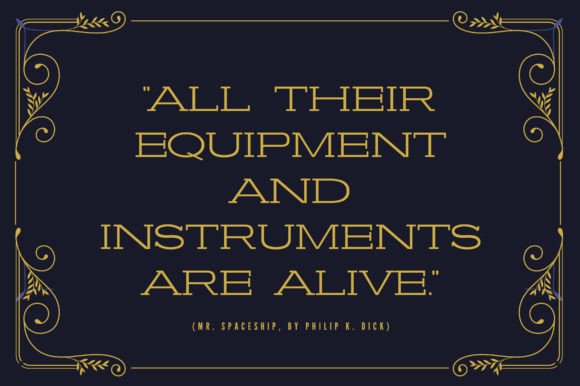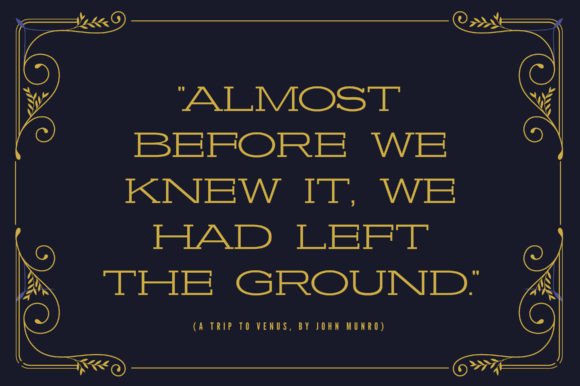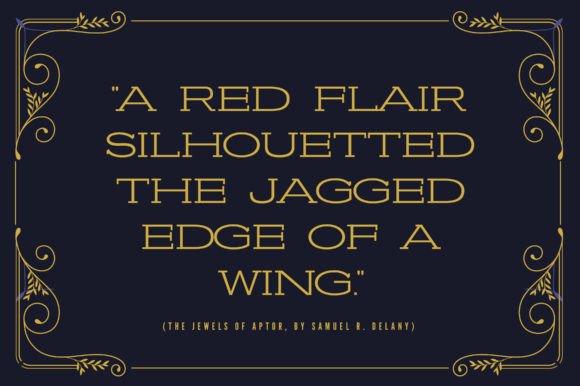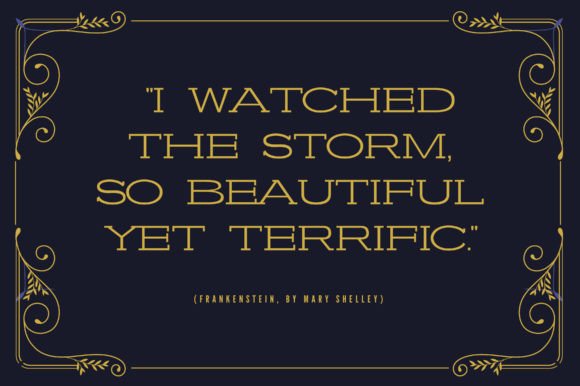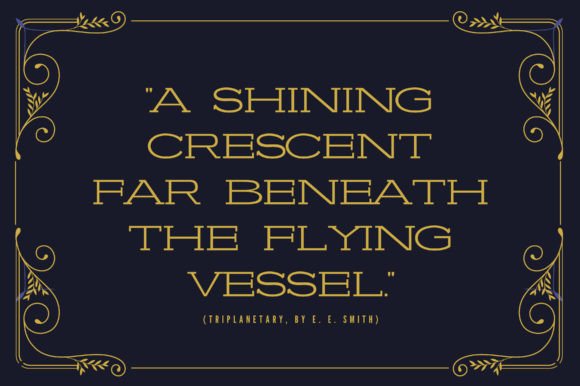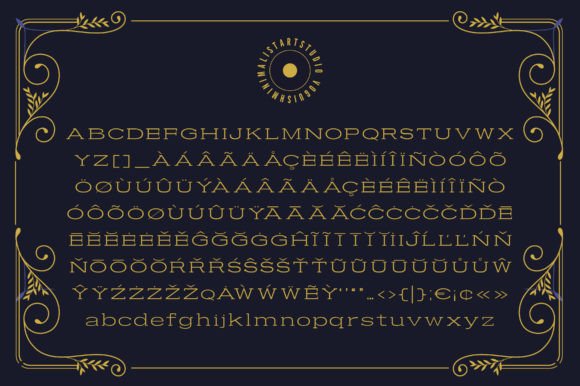
The Ultimate Luxe Look: Unleashing the Power of Extreme Font
Have you ever stared at a beautifully designed label, magazine cover, or social media post and felt an instant rush of inspiration? You’re not alone. As creatives, we’ve all been there – that moment when a single design element sparks an idea, and we can’t wait to bring it to life. For me, that moment often comes when I see a stunning slab serif typeface that screams luxury and sophistication.
Enter Extreme Font, a meticulously crafted typeface designed to deliver the maximum luxurious aspect of a slab serif font. With its delicate glyphs and elegant lines, Extreme Font is perfect for packaging design, fashion design, fragrance design, cosmetics design, and more. By incorporating this exquisite font into your creations, you’ll unlock a world of possibilities and take your designs to the next level.
Extreme Font Key Features
- Unique Characteristics: Features a dynamic, hand-crafted design with intricate details and bold lines, making it ideal for headlines and titles
- Font Weight: Offers a range of font weights, from light to ultra-bold, allowing for versatility in design applications
Designer Review: Extreme Font
Overall, I have mixed feelings about Extreme Font. While it has some impressive features, it also has its limitations.
- Unique Design: Extreme Font offers a truly one-of-a-kind aesthetic that can add a touch of edginess to any design.
- High Contrast: The font’s bold lines and high contrast make it perfect for headings and titles that need to grab attention.
- Customizable: Extreme Font offers a range of customization options, allowing designers to fine-tune the font to their specific needs.
- Readability Issues: The font’s extreme design can sometimes make it difficult to read, particularly at smaller font sizes.
- Limited Use Cases: Extreme Font may not be suitable for designs that require a more subtle or elegant look.
- Compatibility Issues: Some users have reported compatibility issues with certain operating systems or software.
While Extreme Font has its strengths, its limitations may make it less suitable for certain design projects. However, for those who want to add a bold and eye-catching touch to their designs, it may be worth considering.
Tips for Getting the Most Out of Extreme Font
Use Extreme Font to add emphasis to headings, titles, or call-to-actions. Experiment with different font sizes and colors to create visual hierarchy and draw attention to important information. Consider pairing Extreme Font with other bold or decorative fonts to create a visually appealing design.
Extreme Font is commonly used in: promotional materials, social media graphics, presentations, and advertising. It’s ideal for creating bold, eye-catching headlines or titles that grab attention and convey a sense of urgency or importance.